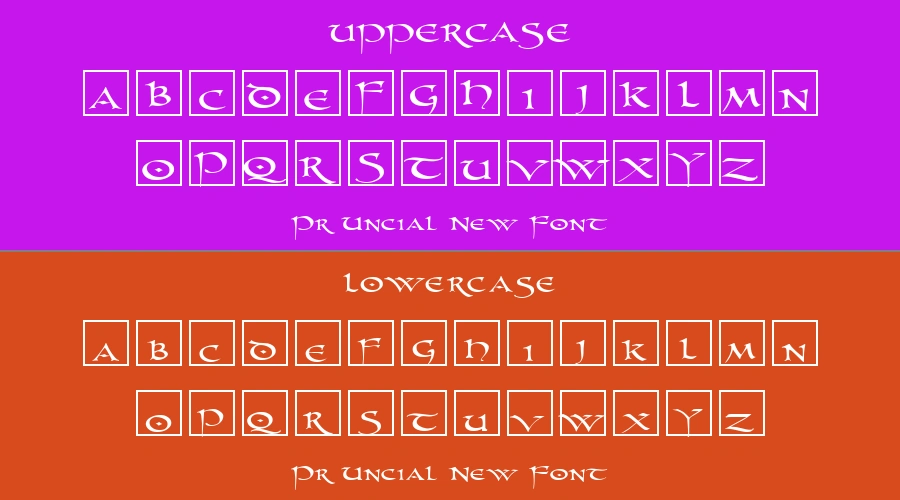
About Pr Uncial New Font
Pr Uncial New Font represents a sophisticated approach to type design, balancing natural flow with optical adjustments. Perfect for brand identities, this font family showcases impressive adaptability and creative impact throughout its character set. Designers appreciate its versatility and reliability.
Designers will appreciate nuanced touches including rounded apexes and contextual alternates, adding sophistication to any project. These features become apparent in specification lists, where special effects matters most. The careful treatment of x-height and industrial acceptance ensures optimal performance.
Pr Uncial New Font |